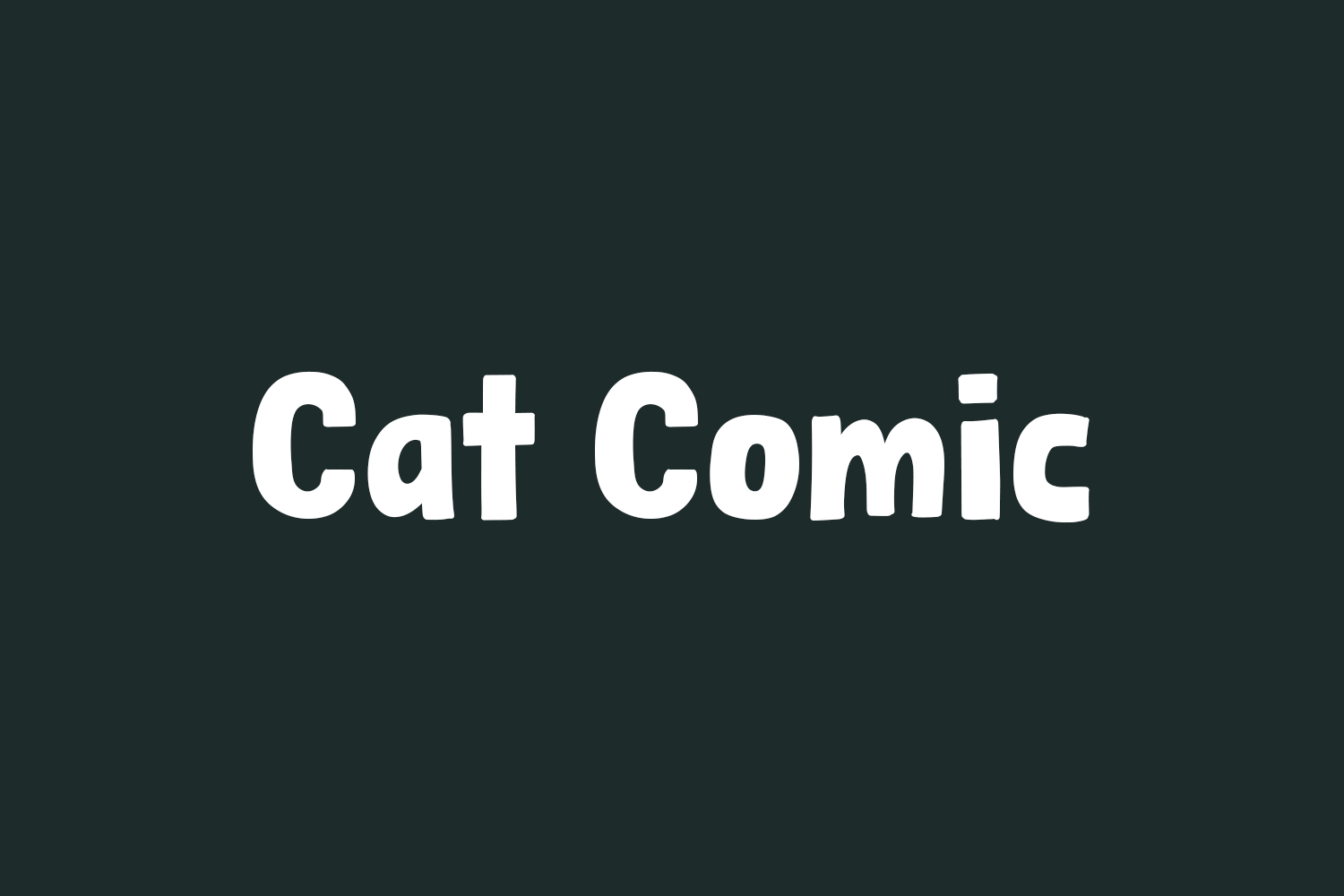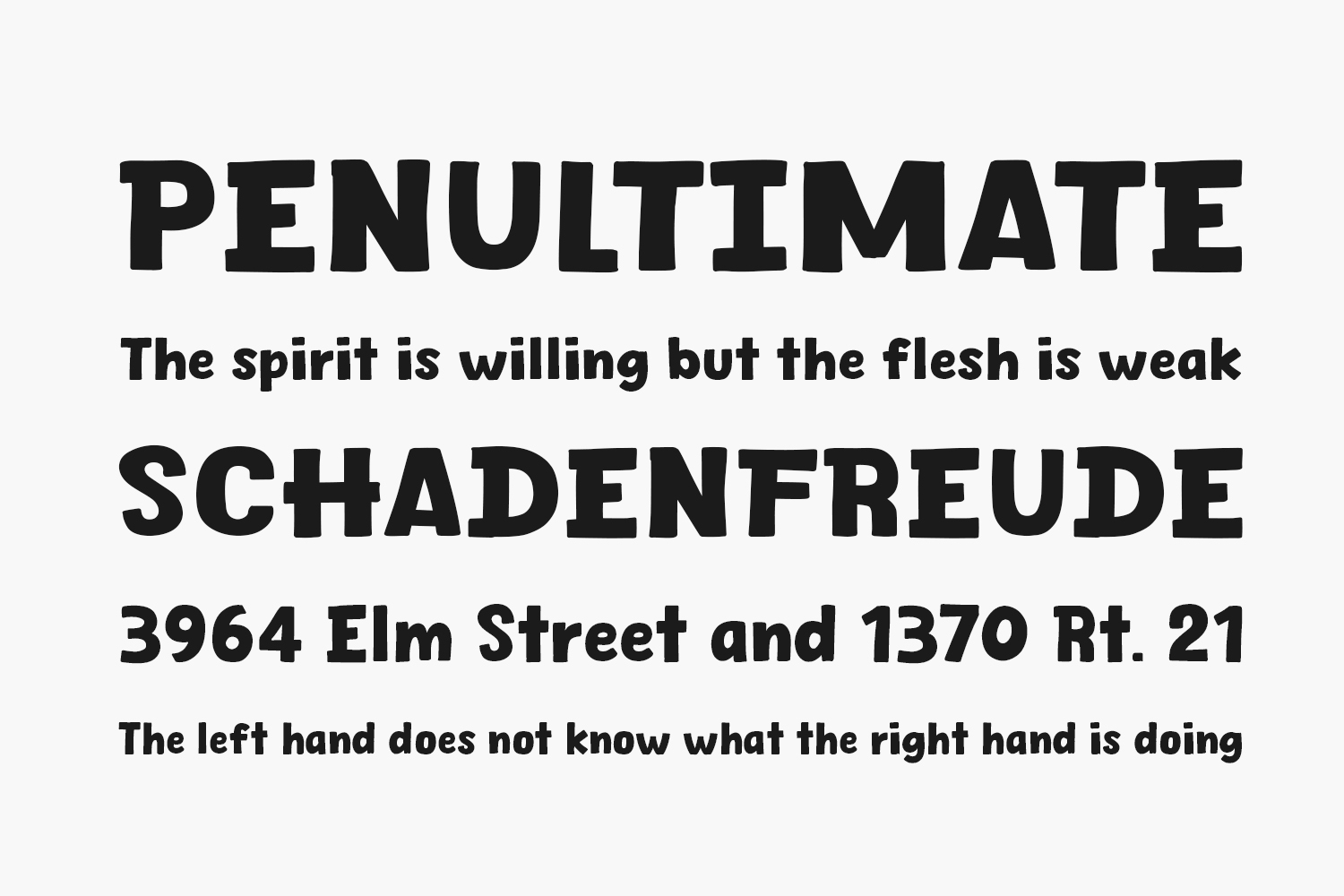
Cat Comic Free Font is a contemporary and adorable display font, ideal for enhancing posters, logos, magazines, book covers, banners, and more! Elevate your designs with this fantastic font and watch as it effortlessly brings your creative visions to life. Its versatility ensures compatibility with a wide array of projects, making it the perfect addition to your design toolbox for making your ideas shine. Download the font for free if you need it for personal use or purchase the full version for commercial use.